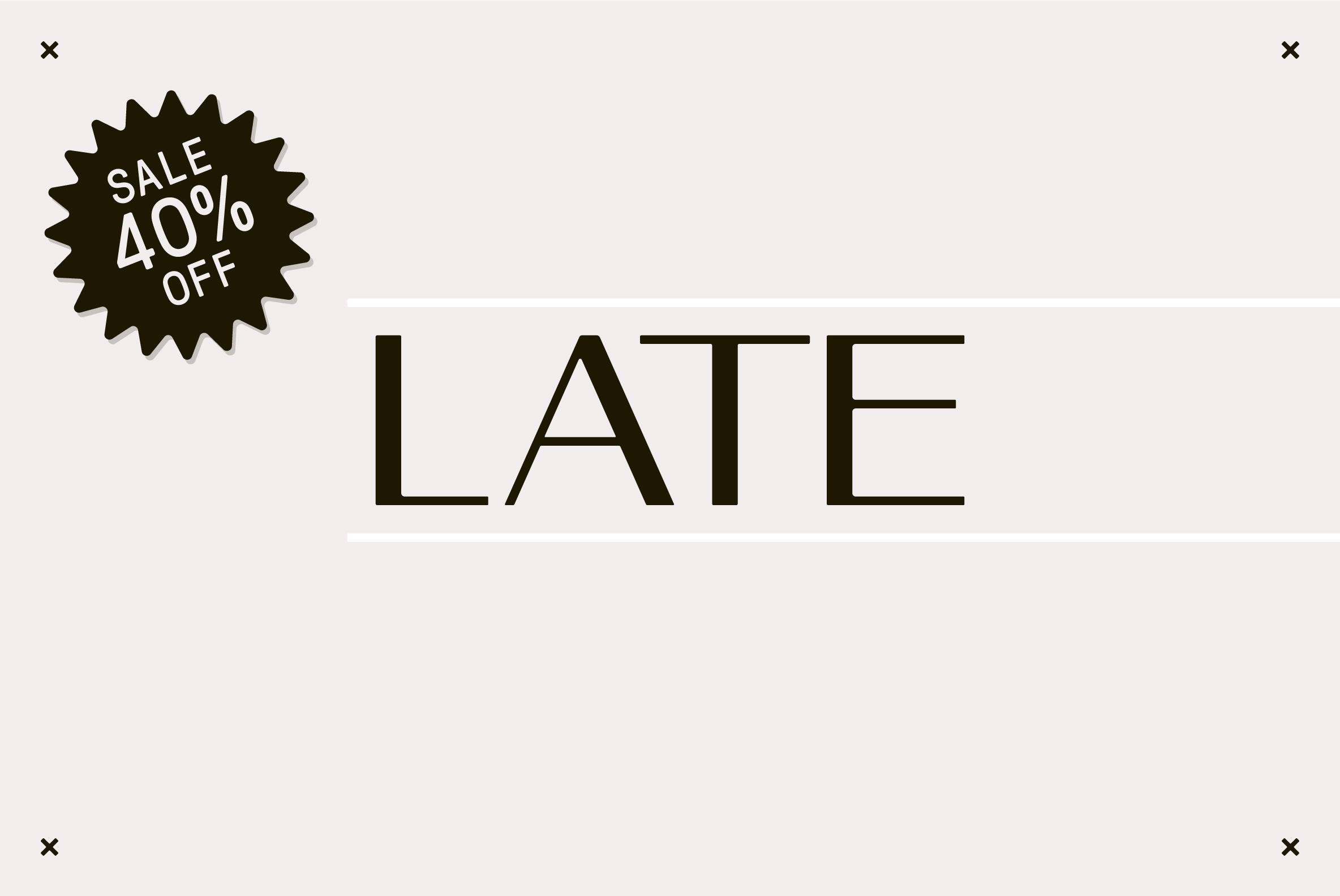
Late - A Sans Serif Font
Late is a solid but soft, modern sans serif. Perfect for magazine layouts, invitations, logos, or artwork.
It contains an uppercase alphabet with numbers.